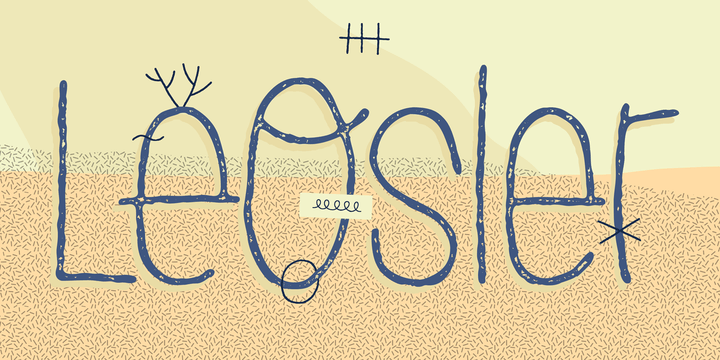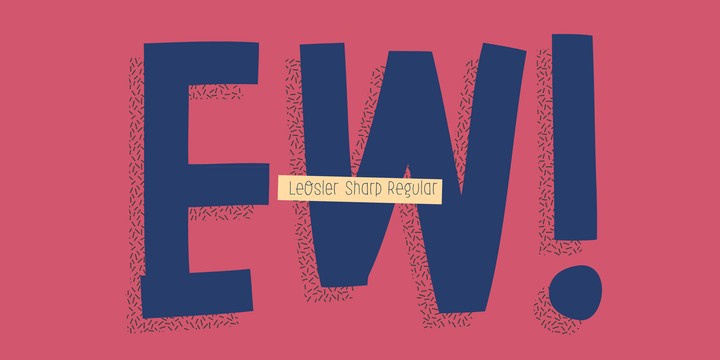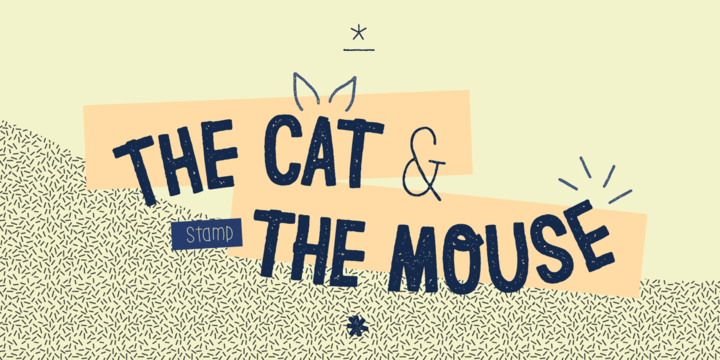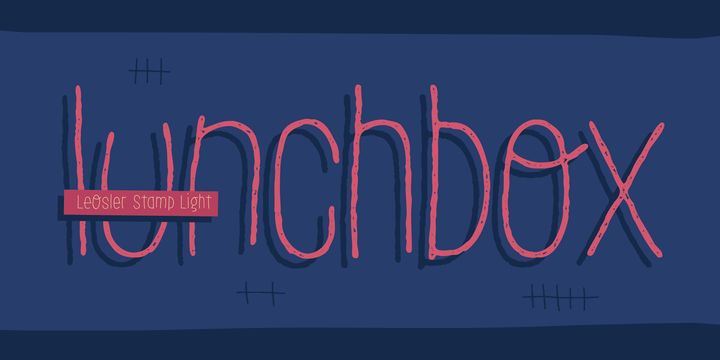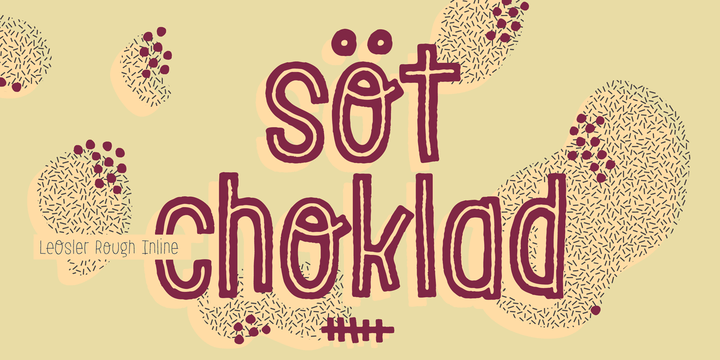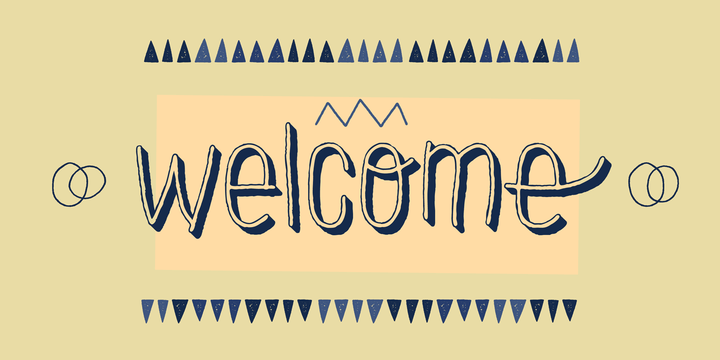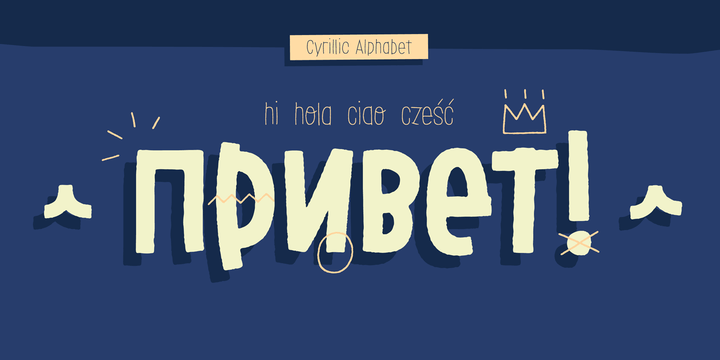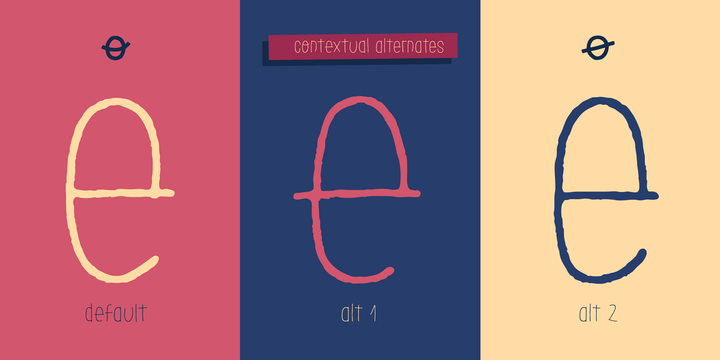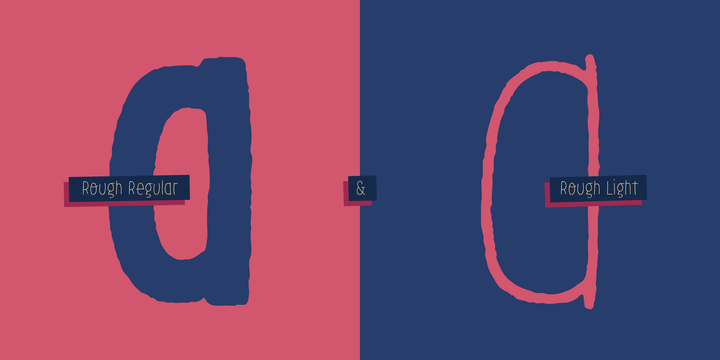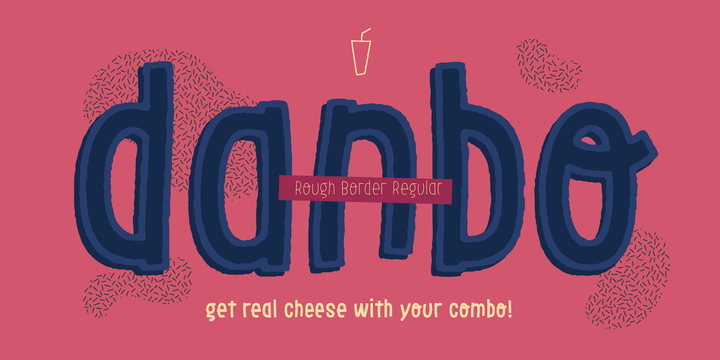
LeOsler
Font Family by Antipixel Type Studio
LeOsler is a playful and spirited handwritten font with an illustrative imprint. It has Light and Regular weights and a wide range of graphic styles: Sharp, Rough, Stamp, Inline, Border, Shadow, and the unusual Sprinkles texture, having 12 font styles in total.
LeOsler has a slightly condensed structure, a large x-height, aired counters, quirky character design, and a glyph coverage that ensures extended language support with Latin, Greek, and Cyrillic scripts.
Most styles have rugged and textured designs, whereas the 'Sharp' fonts have the cleanest outlines of this type family, with perfectly smooth contours and polished intersection of strokes. Ideal for display use and meant for large settings. However, LeOsler can be used in smaller point sizes for short sentences, delivering a more delicate look.
LeOsler has three alternating alphabets that slightly differ from one another. These sequentially alternate to avoid the same letterforms or textures appearing next to each other. The Contextual Alternates feature is available for Latin, Greek, and Cyrillic.
LeOsler includes a set of 130+ icons consistent with the typeface's visual language. The icons come in textures Rough and Stamp, in weights Light and Regular, and share graphic attributes with the fonts for a perfect match.
• Uppercase & lowercase, numbers, punctuation, ligatures, arrows, emojis, case-sensitive characters, monetary and mathematical symbols, and more!